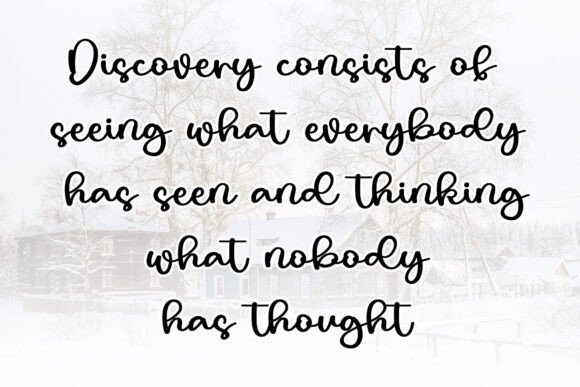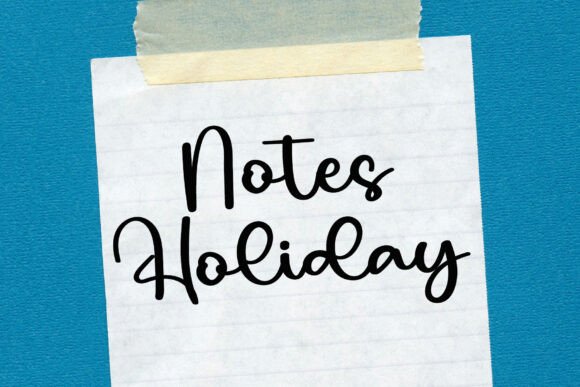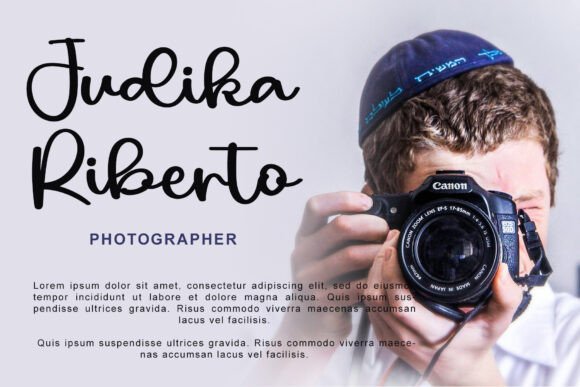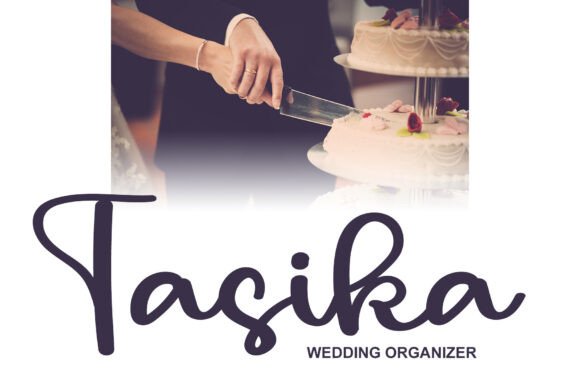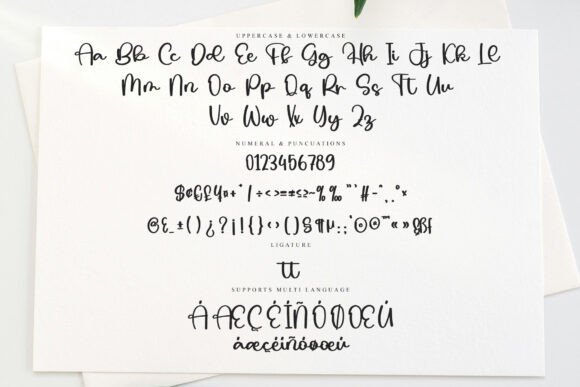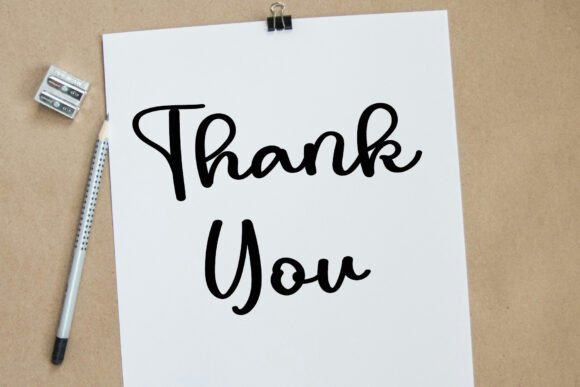
Introduction to Shortage Font
Have you ever found yourself staring at a blank page, eager to bring a creative project to life, but struggling to find the perfect font to set the tone? That’s where the Shortage Font comes in – a stylish and dainty script font that’s sure to elevate your design game.
Whether you’re working on a logo, branding project, or special event, the Shortage Font is a valuable resource for designers. Its PUA encoded features allow for seamless access to all glyphs and swashes, making it a high-quality design resource that’s easy to use. With its transparent background and free download option, you can incorporate this beautiful script font into your next creative project without breaking the bank.
As a designer, you understand the importance of having the right tools to bring your vision to life. The Shortage Font is a must-have in your design arsenal, offering a level of sophistication and elegance that’s hard to find in other fonts.
Key Features of Shortage Font
- High quality, professional font design suitable for various creative projects.
- Unique characteristic: A modern and clean aesthetic, perfect for modern branding, advertising, and editorial design projects.
Honest Review: Shortage Font
As a designer, I’m always on the lookout for high-quality design resources to elevate my creative projects. Recently, I stumbled upon the Shortage Font, and I’m excited to share my thoughts on this free download.
Here’s what I like about the Shortage Font:
- ✨ Unique character set: The font features a quirky, hand-drawn feel that’s perfect for adding a touch of personality to your designs.
- ✨ Versatile: The Shortage Font is suitable for a wide range of creative projects, from branding and packaging to editorial and web design.
- ✨ High-quality: The font is crisp and clear, even when used on a transparent background, making it a great choice for designers who need a reliable design resource.
However, I do have a few reservations:
- ⚠️ Limited language support: The Shortage Font only supports a limited number of languages, which may be a concern for designers working on international projects.
- ⚠️ Not suitable for body text: While the font is great for headlines and titles, it may be too ornate for use as body text, which could impact readability.
Overall, I think the Shortage Font is a great addition to any designer’s toolkit. With its unique character set and high-quality design, it’s a great choice for creative projects that require a little extra flair. Just be aware of its limitations, and use it wisely.
The Shortage Font is a high-quality, free download design resource ideal for creative projects. Its transparent background and sleek design make it a versatile tool for various applications.
The Shortage Font is ideal for various creative projects, including:
- Business cards and brochures.
- Marketing materials and social media graphics.
- Infographics and presentations.